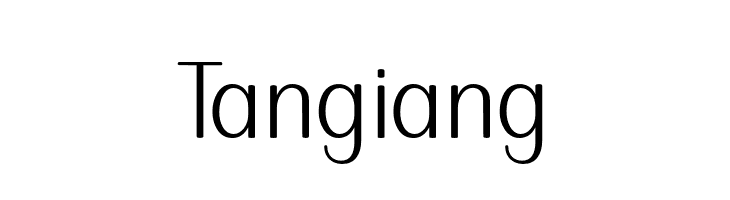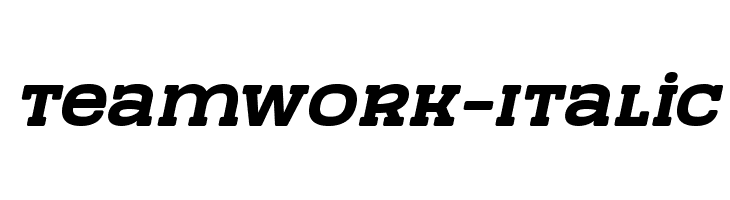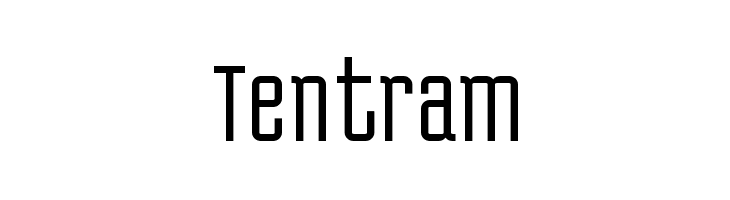
A bold, playful font with heart-shaped embellishments on each character.
A playful, handwritten font with rounded edges and a casual, friendly appearance.
A playful, handwritten font with smooth curves and a casual, friendly style.
A modern, clean sans-serif font with a slightly condensed style.
A bold, robust font with thick strokes and slight curvature, ideal for impactful designs.
A bold, italic font with strong, dynamic strokes and a modern style.
A modern, monospaced font with a clean and geometric design.
A modern, italicized font with medium contrast and a sleek, condensed design.
A bold, flowing script font with elegant, cursive letterforms.
A bold, playful script font with a handwritten style.